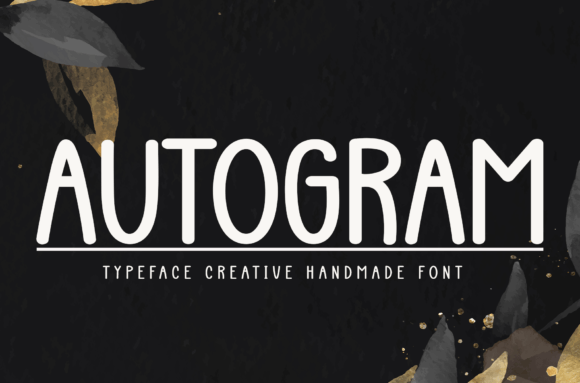
The Autogram Font: A Sweet and Friendly Addition to Your Design Arsenal
Ah, the elusive perfect font. You know, that one that makes your design project go from meh to mesmerizing. I’ve been there, friends. I was working on a wedding invitation project last year, and my client wanted something that was both elegant and playful. I scoured the internet, tried out a gazillion fonts, but nothing seemed quite right. That was until I stumbled upon the Autogram font. This sweet and friendly handwritten font has since become a staple in my design toolkit, and I’m excited to share it with you.
What I Love About Autogram ✨
• ✅ Fresh and neat design that’s perfect for a variety of projects
• ✅ Friendly and approachable vibe that’s sure to delight your audience
• ✅ Extensive character set, including support for multiple languages
• ⚠️ Some users may find the font a tad too casual for very formal projects
• ⚠️ Limited availability of stylistic alternates (but more on that later)
The Story Behind Autogram
Autogram was designed by a talented font creator who wanted to craft a font that was both fun and functional. With its sweet, handwritten aesthetic, Autogram is perfect for designers who want to add a personal touch to their projects. Whether you’re working on a wedding invitation, a greeting card, or a social media graphic, Autogram is sure to delight.
Q: Is Autogram suitable for body text?
A: While Autogram is highly legible, it’s best suited for headlines, titles, and short blocks of text. For longer body text, you may want to choose a more traditional serif or sans-serif font.